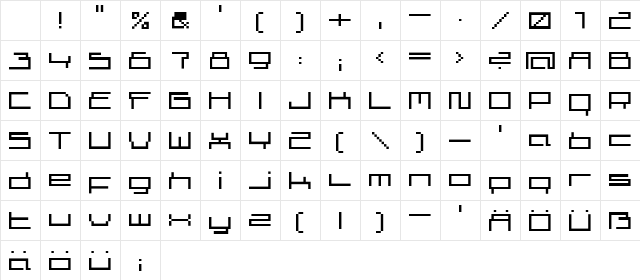
Complete Superscreen Medium glyph index. Displaying only characters natively supported by Superscreen Medium font.
Superscreen is a composed and adaptable typeface that performs quietly and consistently across a wide range of design contexts.